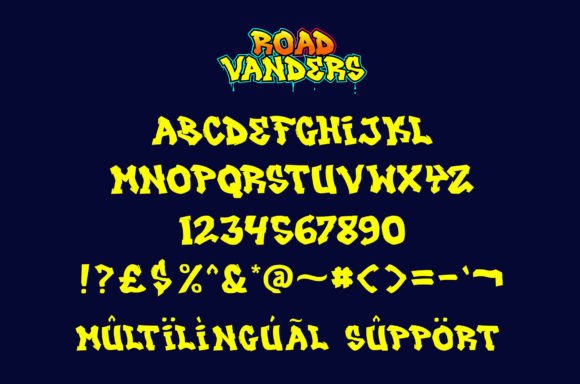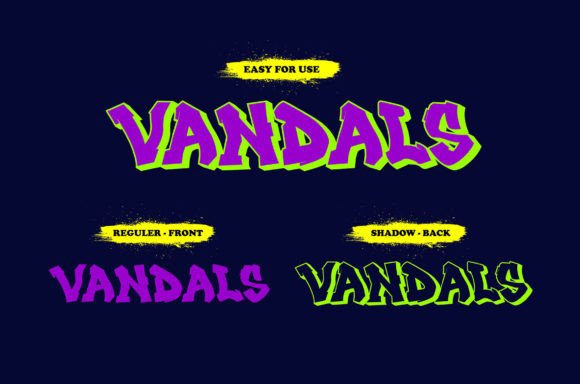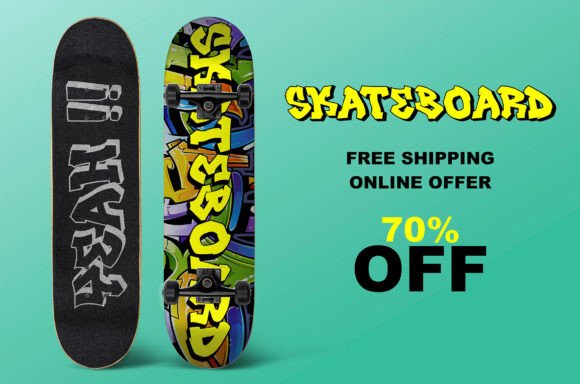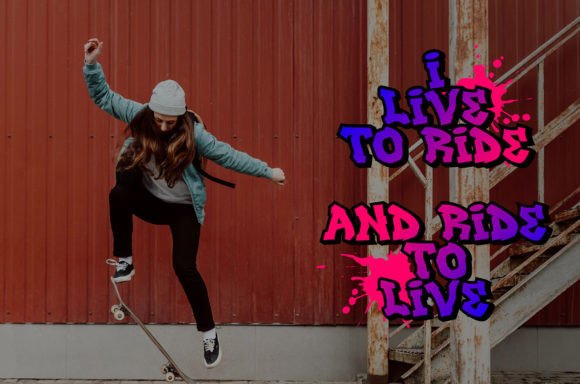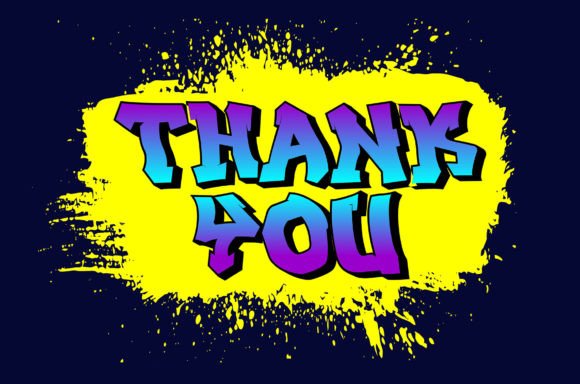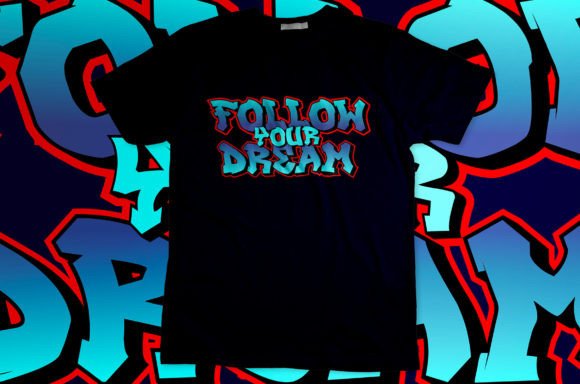
Introduction to Road Vanders Font
Do you ever find yourself stuck in a creative rut, searching for that perfect font to give your design project the edge it needs? I know I have. It was during one of these moments that I stumbled upon the “Road Vanders Font” – an urban graffiti font that instantly sparked my imagination. Its bold and edgy style is reminiscent of street art, and I knew right then that I had to learn more about this design resource.
As a designer, having access to high-quality fonts like “Road Vanders Font” can be a game-changer. Not only can it elevate your creative project, but it can also help you convey the right message to your audience. With its transparent background and free download option, this font is perfect for designers looking to add a touch of attitude to their designs without breaking the bank.
Key Features of Road Vanders Font
- High-quality design resource ideal for creative projects, offering a unique and modern look.
- Features a transparent background, allowing for easy customization and versatility in design applications.
- Comes in a range of sizes, from 12 to 72 points, and resolutions up to 300 DPI for crisp and clear display.
- Perfect for use in digital and print media, including logos, signage, and advertising materials.
- Designed with a focus on readability and legibility, ensuring that your message is conveyed effectively to your target audience.
Honest Review: Road Vanders Font
I recently came across the Road Vanders Font, a versatile design resource that can elevate any creative project. One of the standout features is its high-quality design, making it perfect for professional use.
- Unique Style: The font’s distinctive design makes it stand out from more common fonts, adding a touch of sophistication to any text.
- Transparent Background: The font’s transparent background allows for seamless integration with other design elements, making it ideal for creative projects that require a cohesive look.
While the Road Vanders Font is an excellent addition to any design library, there are a few limitations to consider:
- Limited Character Set: The font’s character set is somewhat limited, which may not be suitable for projects that require a wide range of characters.
- Not Ideal for Small Text: Due to its unique design, the font may not be the best choice for small text, as it can be difficult to read.
Overall, I’m impressed with the Road Vanders Font and its potential to elevate creative projects. With its high-quality design, unique style, and free download, it’s a great addition to any design library. However, its limitations should be considered before using it for specific projects.
Tips for Getting the Most Out of Road Vanders Font
To maximize the potential of the Road Vanders Font, experiment with different font sizes, colors, and combinations. Consider pairing the font with other design elements, such as graphics or images, to create a visually striking design.
The Road Vanders Font is suitable for various creative projects, including logos, business cards, social media graphics, and website headers. Its unique design makes it an excellent choice for branding and marketing materials.